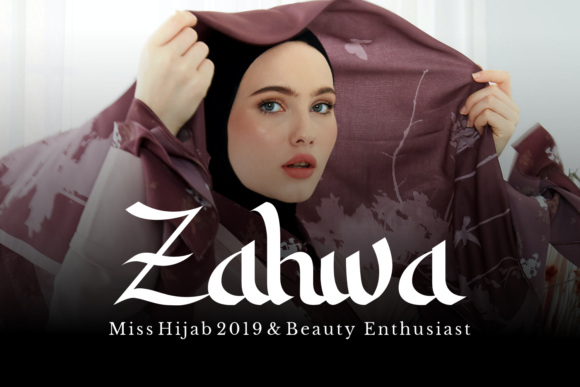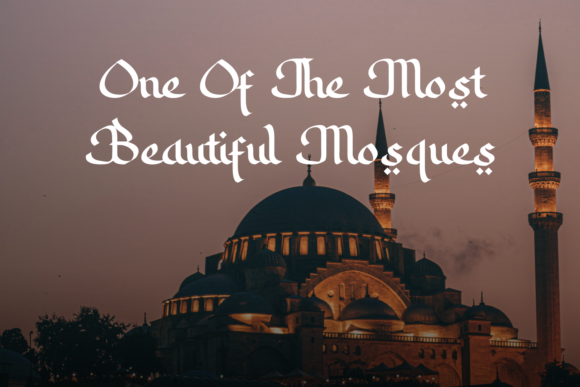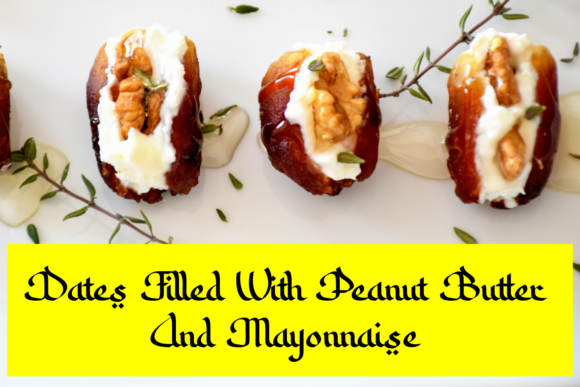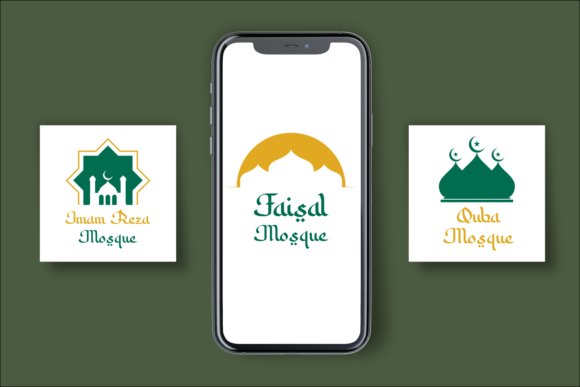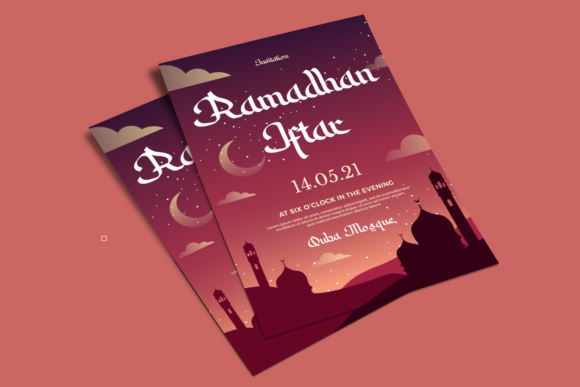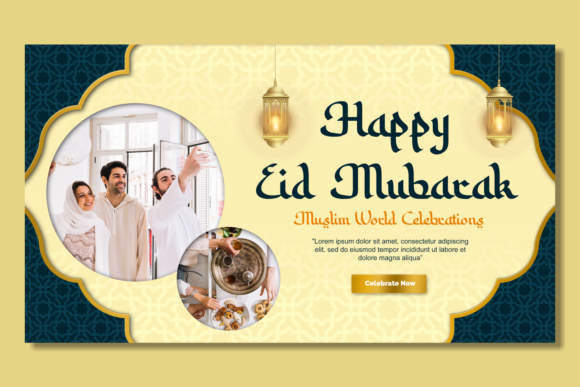
Sabana Font
About Sabana Font
Sabana is an arabic style script that is suitable for ramadan projects. It will add a luxury spark to any design project that you wish to create!